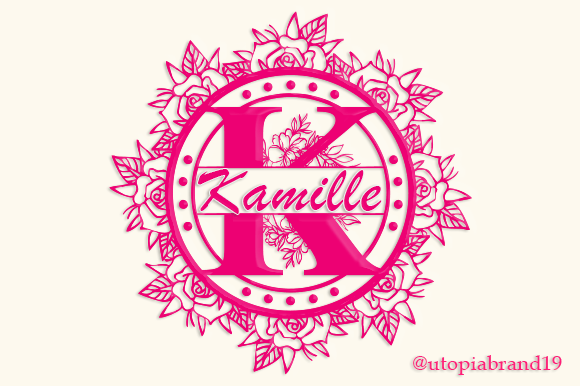
Introducing Kamille Monogram Font, the perfect choice for anyone who wants to add a touch of elegance and sophistication to their designs. This decorative font is the creation of utopiabrand19, and it features lovely ornaments that will make your creations stand out.
What sets Kamille Monogram Font apart from other decorative fonts is its authentic feel. When you use this font, you'll feel like you're using a one-of-a-kind design that was made just for you. Its unique character is perfect for creating gorgeous wedding invitations, beautiful stationary art, eye-catching social media posts, and cute greeting cards.
If you're looking for a font that will help you make a statement, Kamille Monogram is the perfect choice. Its elegant curves and beautiful ornaments will capture the attention of anyone who sees it, and it's sure to leave a lasting impression.
Whether you're a professional designer or someone who just loves to create beautiful things, Kamille Monogram Font is a must-have in your collection. It's versatile enough to use in a wide range of projects, and it's sure to elevate your designs to the next level.